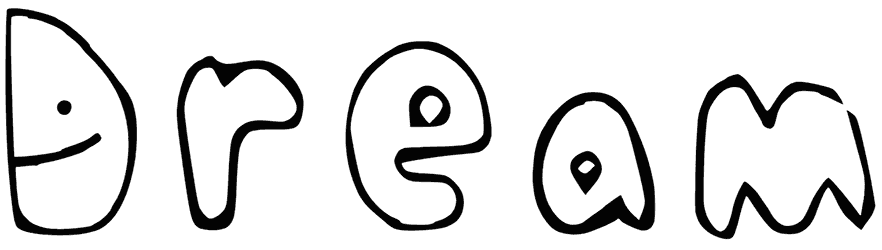
Dream Font
Designed byHajime Greer
Smile emojis in Dream’s capital letters design can bring good feelings and happiness to every viewer. This cartoon font is designed to capture trust at first glance, leading to increased sales statistics.
Its childish and passionate design can give life to your ideas and make them appealing to any audience. So, if you don’t want to fail in your next project and want to break the record in designing computer games and children’s packaging, you won’t be far from success with Dream.